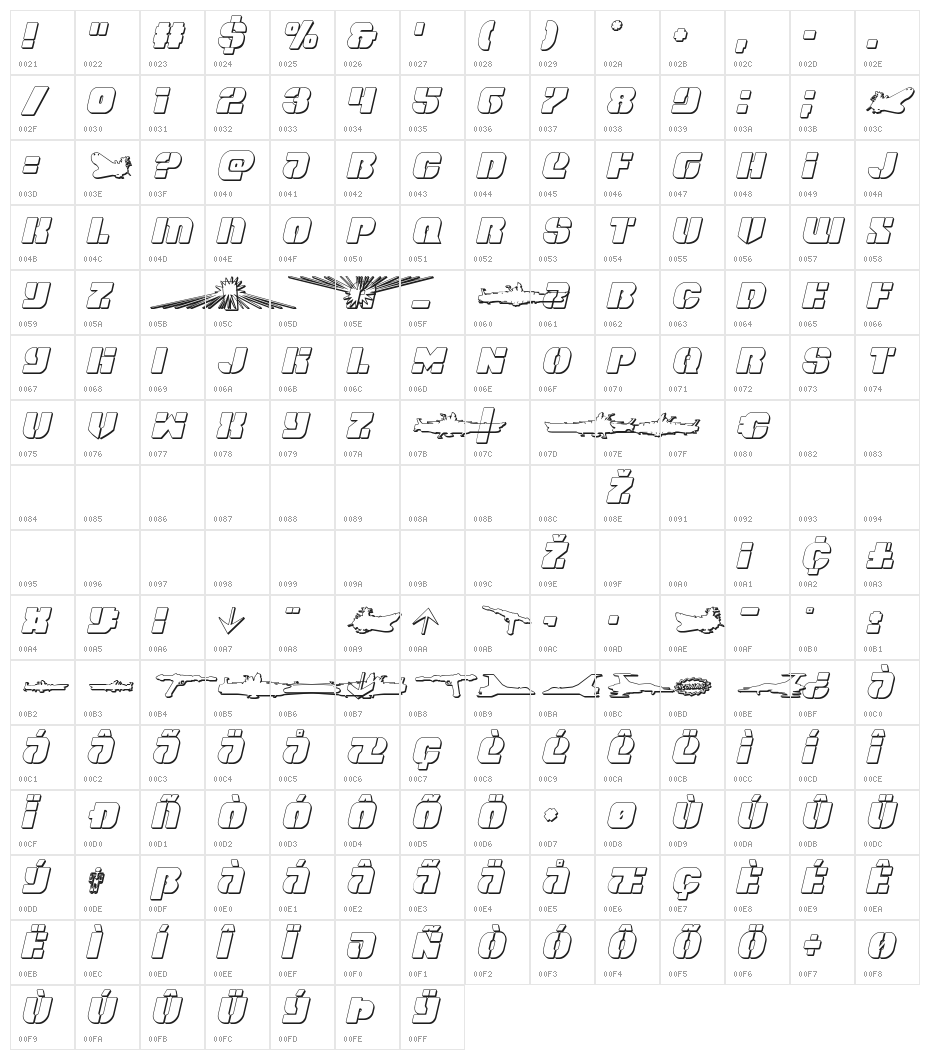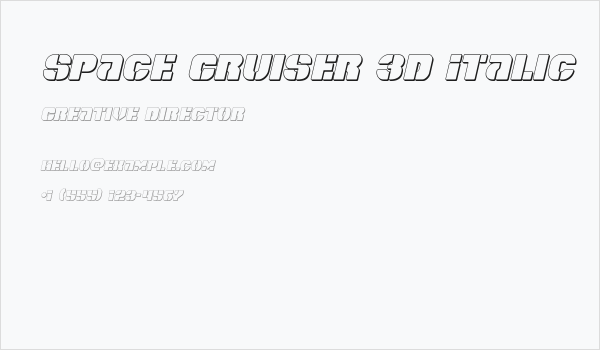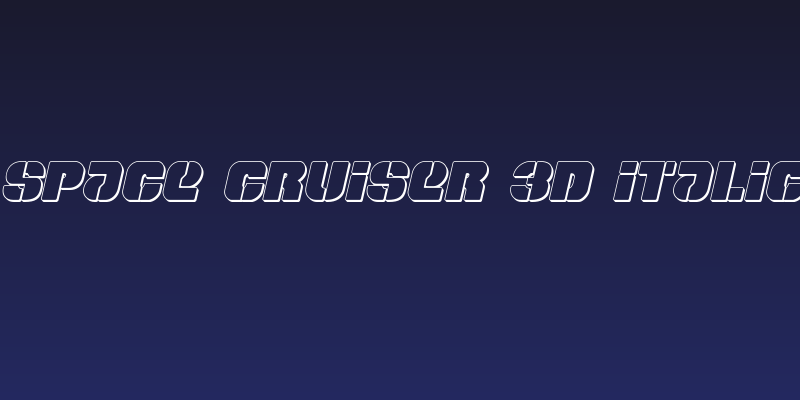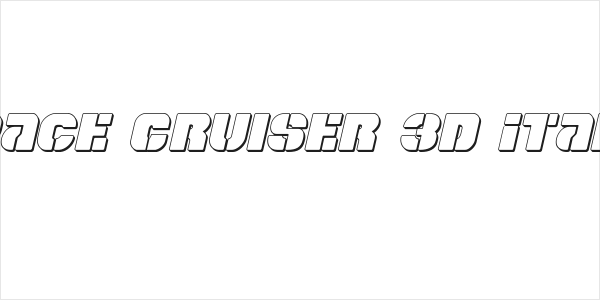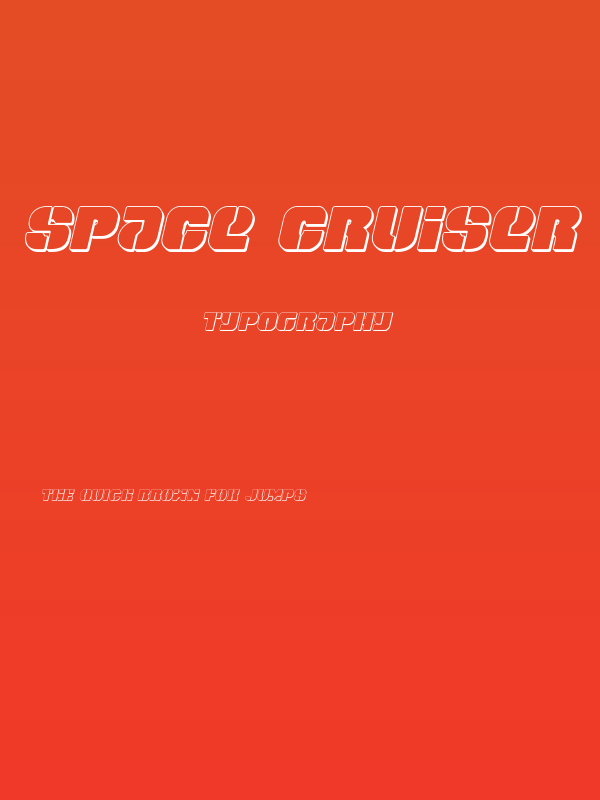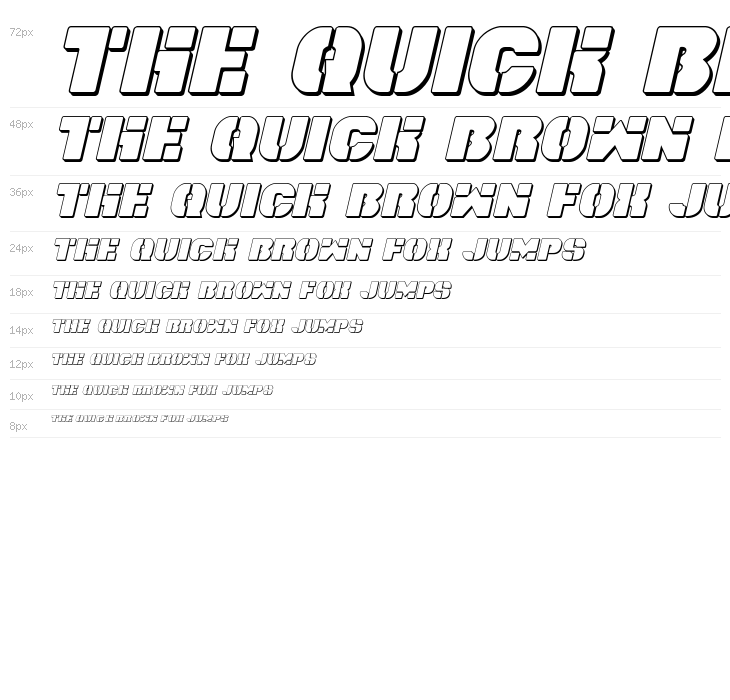
Space Cruiser 3D Italic Font
Space Cruiser 3D Italic Description
This font features a bold, futuristic design with a 3D effect that gives each character a sense of depth and dimension. The italicized style adds a dynamic, forward-moving energy, making it ideal for projects that require a modern and innovative look. The characters are outlined, enhancing the 3D appearance and providing a unique visual impact. This font is perfect for creating eye-catching headlines, logos, and posters that need to stand out. The spacing between characters is normal, allowing for readability while maintaining its distinctive style.
| Overall Style | Futuristic, Dynamic |
| Proposed Projects | Ideal for sci-fi themed designs, video game titles, tech company logos, and futuristic posters. |